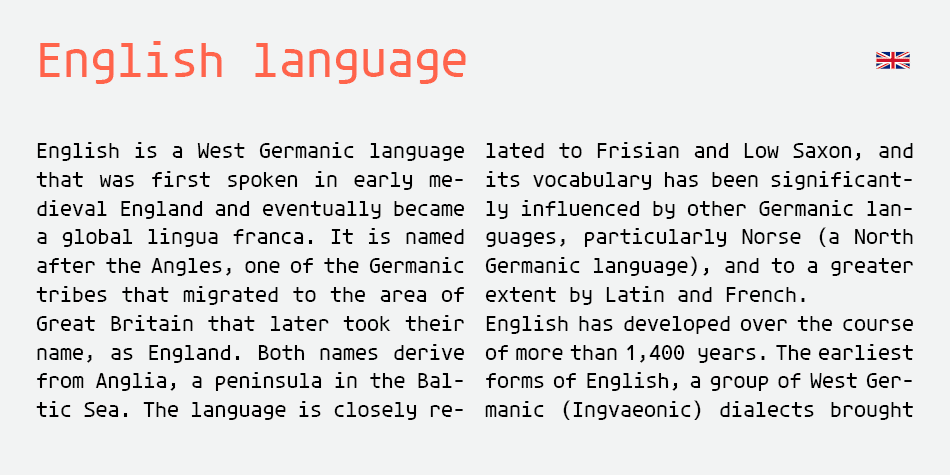
Agave Font
Agave is an Sans serif typeface with a set width. Type agaric conceived and created the font. On November 18, 2019, the font was made public. This font has three precisely matched typefaces. They all operate in different combinations. This font’s brush goes well with the other two Regular and Bold fonts. Agave Regular, Agave Bold, and Agave Brush are the three otf font files included with the font. Agave Bold is the typeface family. Bold is the name of the subfamily.
Agave font is the perfect font for all your fun designs. The font is created for covers, game design, posters, web design, branding, illustrations, badges, and children-related works. The font Agave font is also perfect for branding projects, Homeware Designs, Product packaging – or simply as a stylish text overlay to any background image.
StyleSans-Serif Typeface, Geometric.
DesignerType agaric